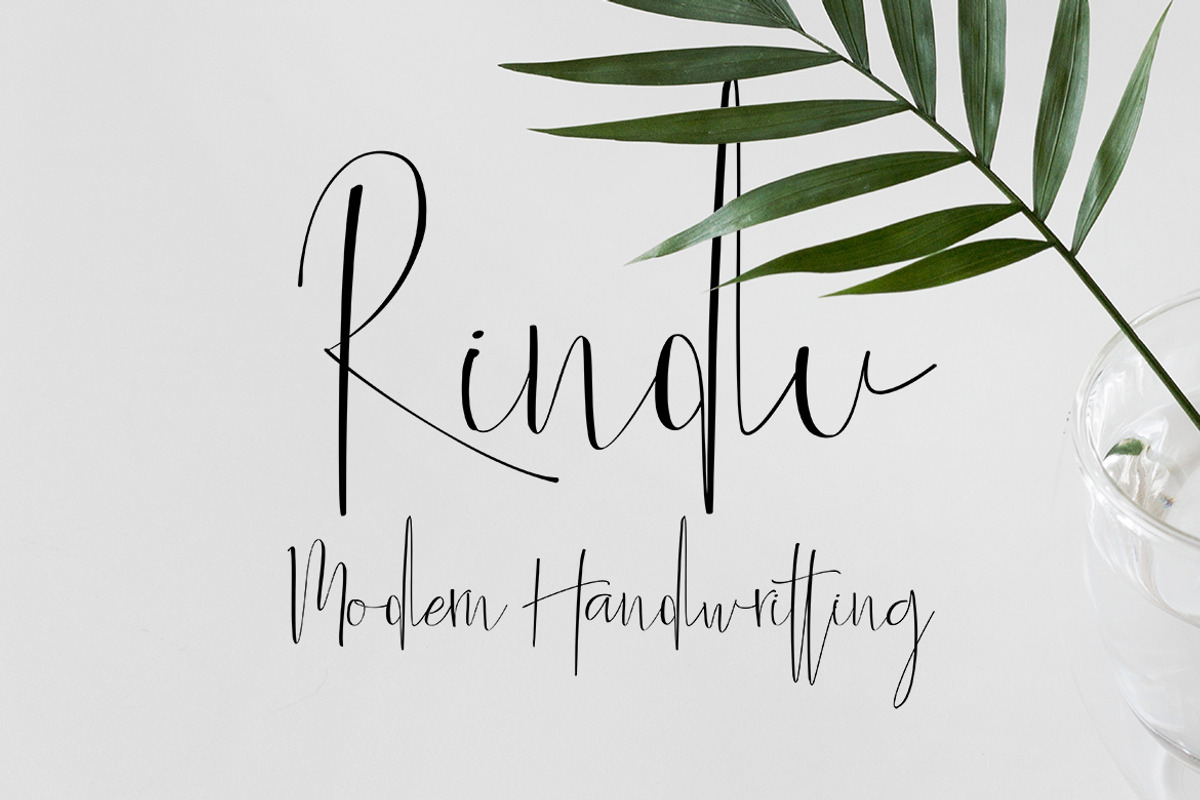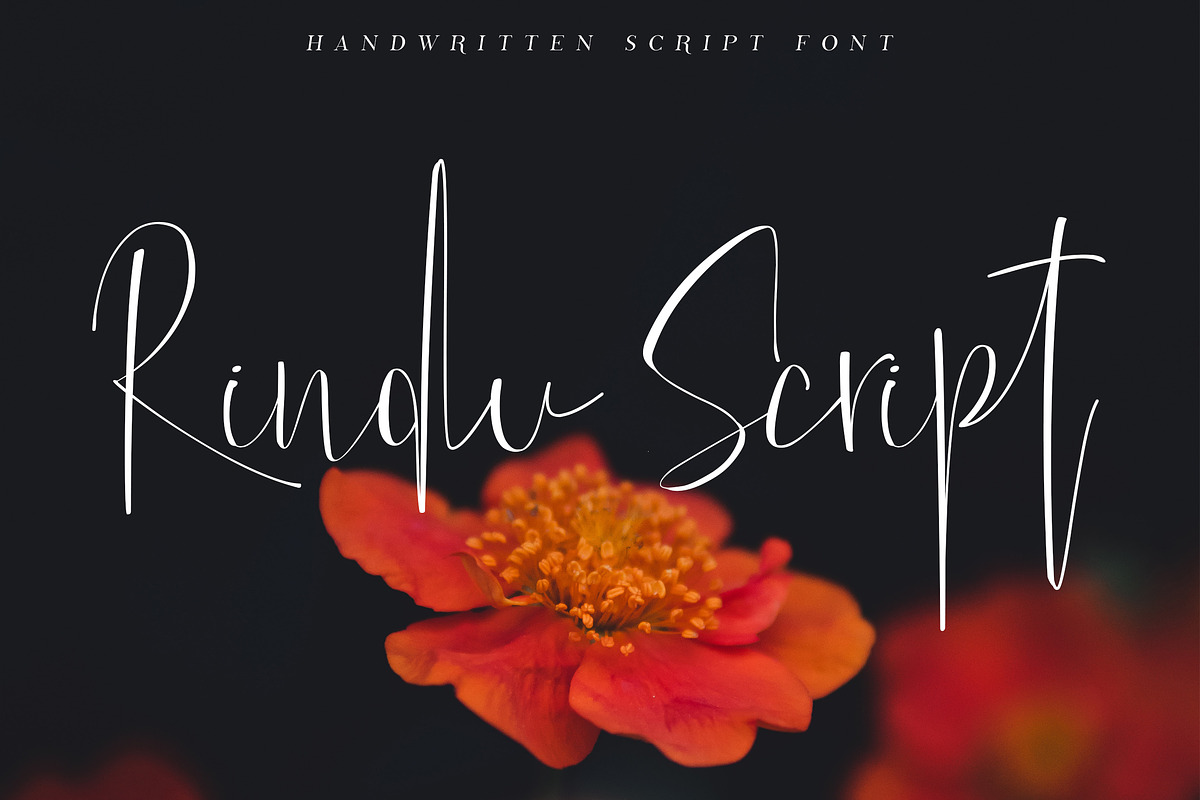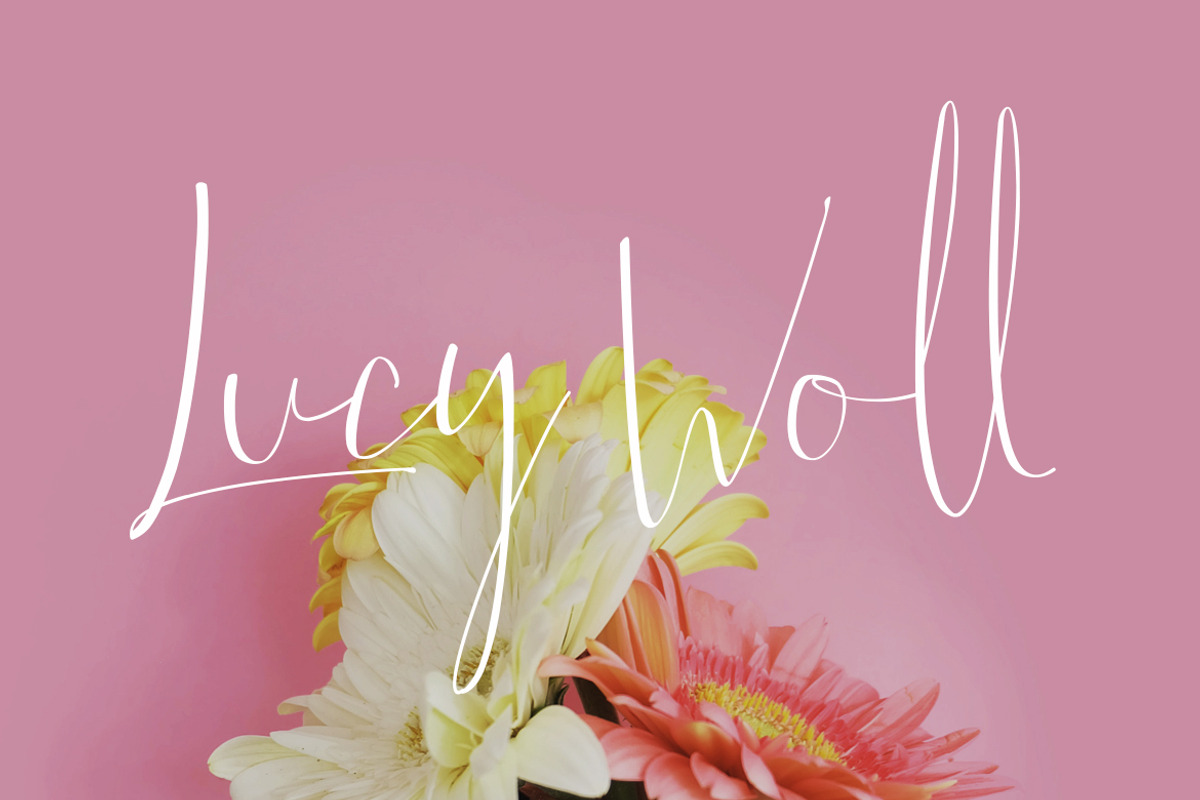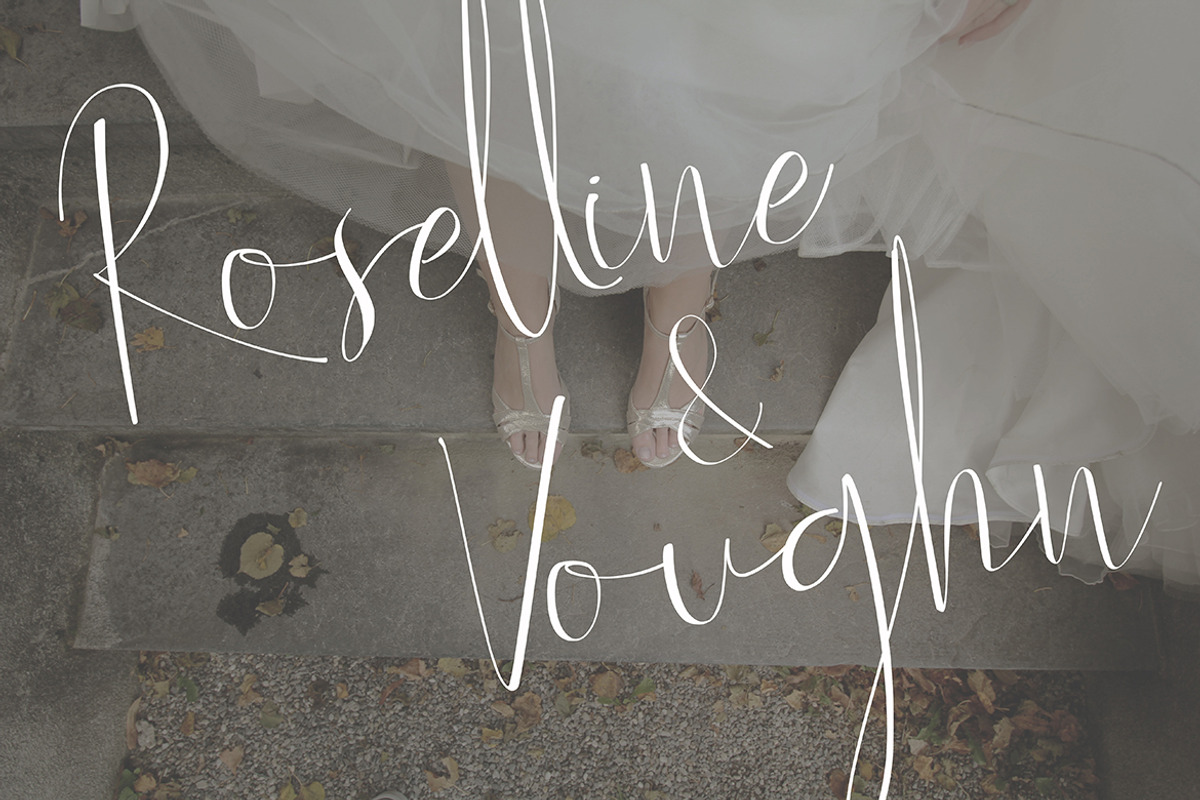
Rindu Script
Rindu Script Font
A beatifully handwritten & designed script font, Has a smooth, classy & sophiscated feel. Can be used for any purpose.
- Basic Ligatures aa, ee, oo, ll, ck, ss, tt, st, th, gh & pt.
- Handwritten font